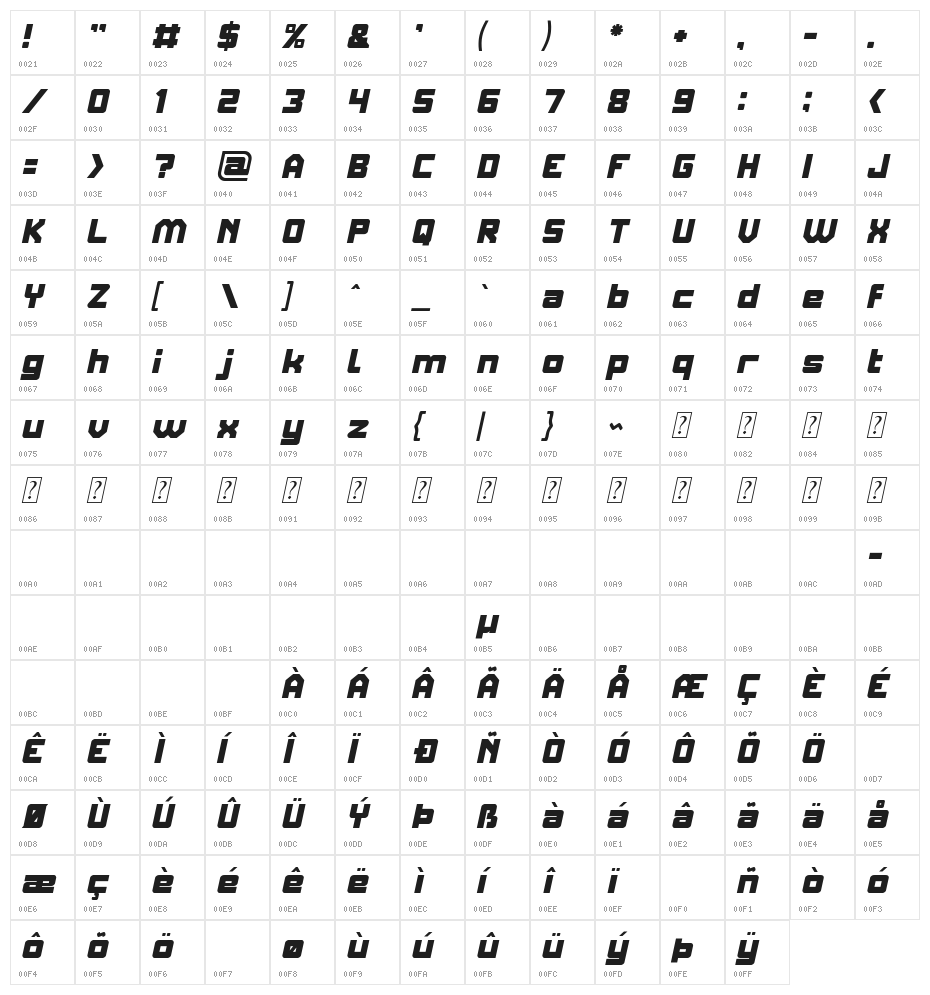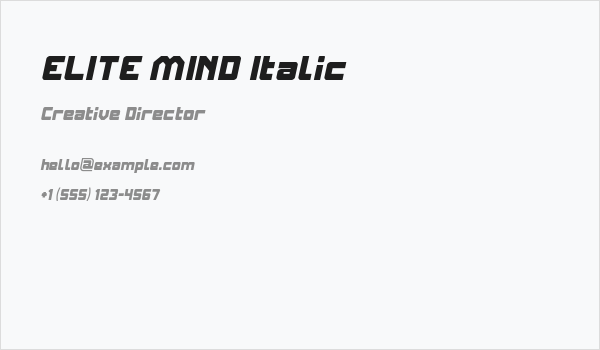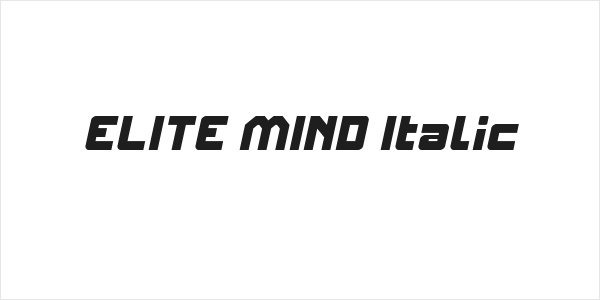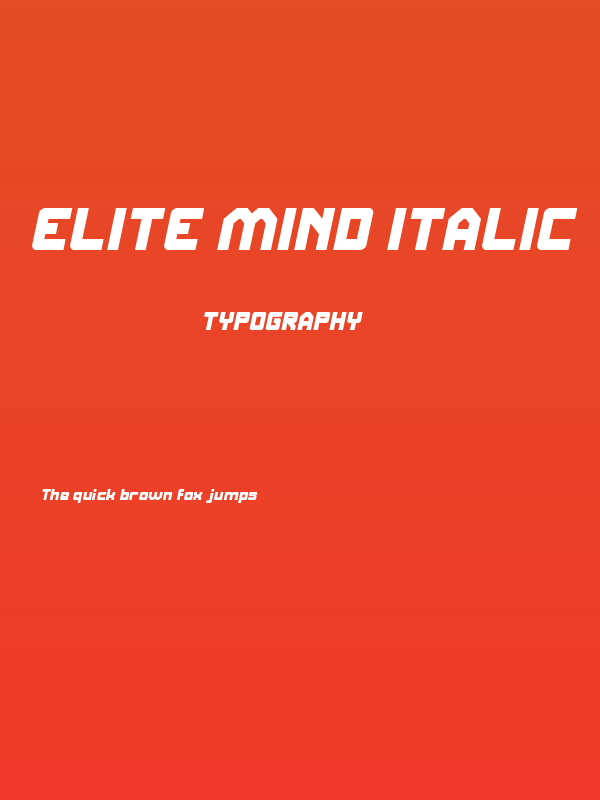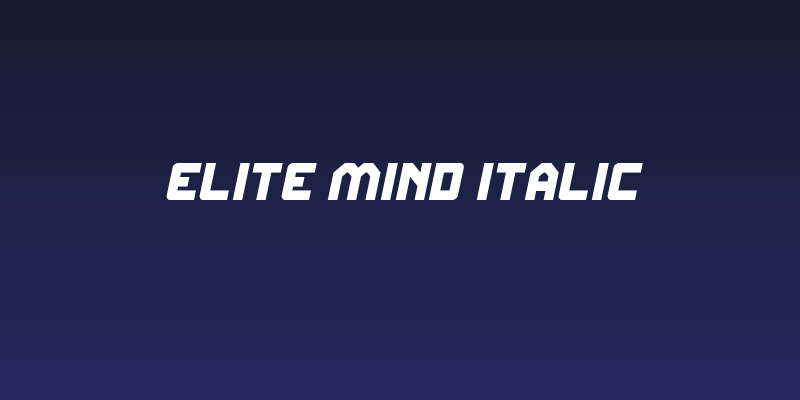
ELITE MIND Italic Font
ELITE MIND Italic Description
This font features a bold and dynamic style with a distinctly italicized slant, giving it a sense of motion and energy. The characters are robust and angular, with a futuristic and sporty aesthetic. The uppercase and lowercase letters maintain a consistent geometric structure, while the numerals and special characters complement the overall design with their bold presence. The font's thick strokes and sharp edges make it highly legible and impactful, suitable for attention-grabbing headlines and modern branding.
| Proposed Projects | Ideal for sports branding, automotive designs, tech-related projects, and dynamic advertising campaigns. |